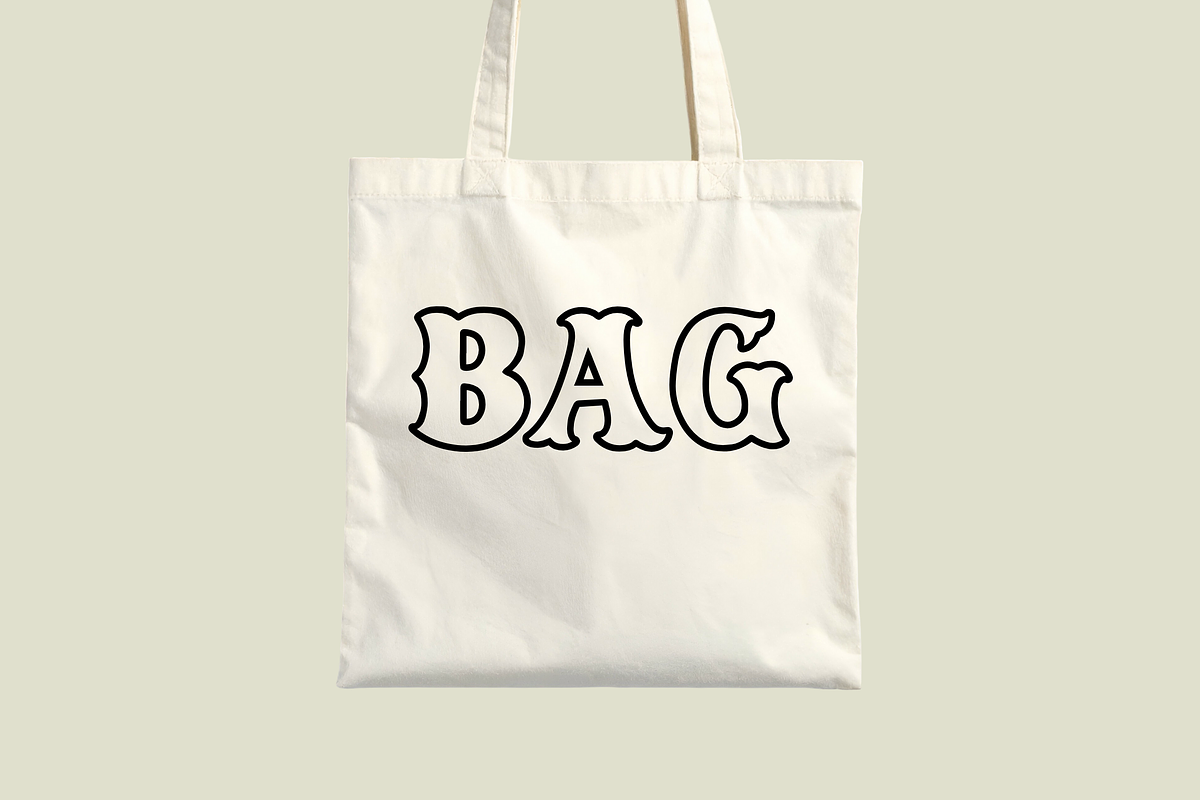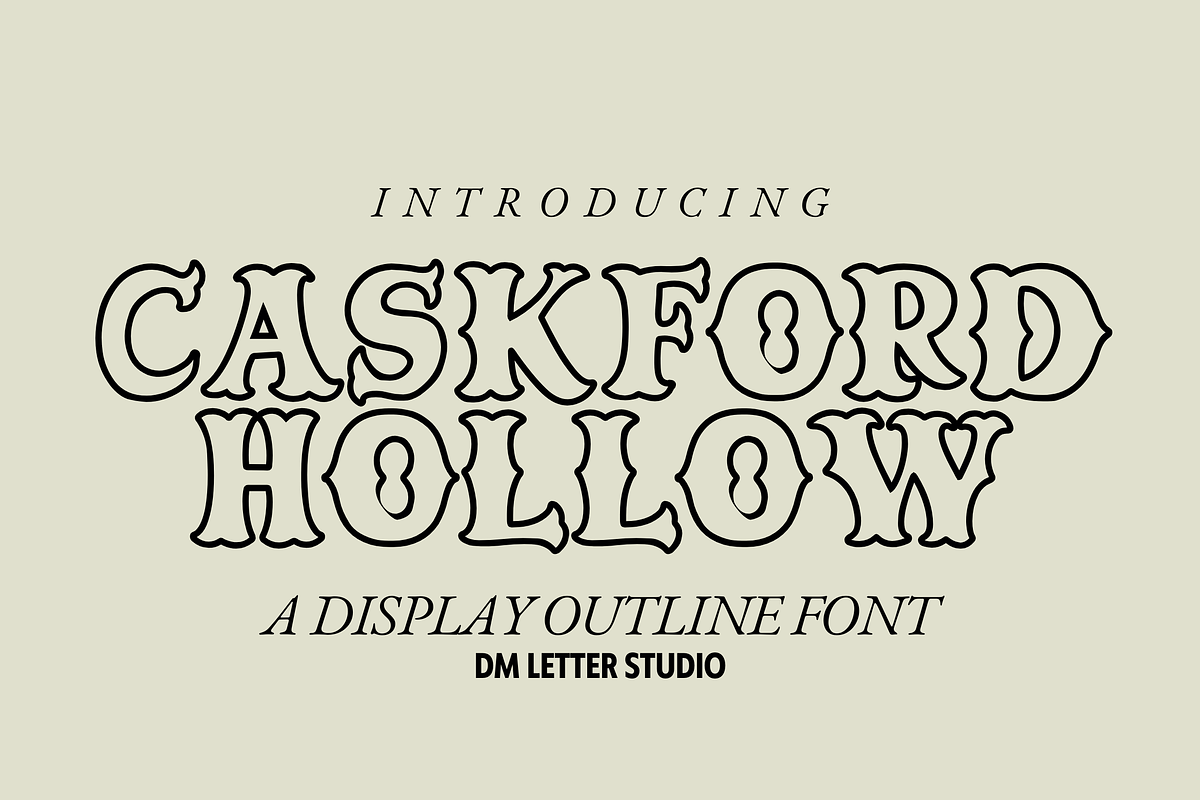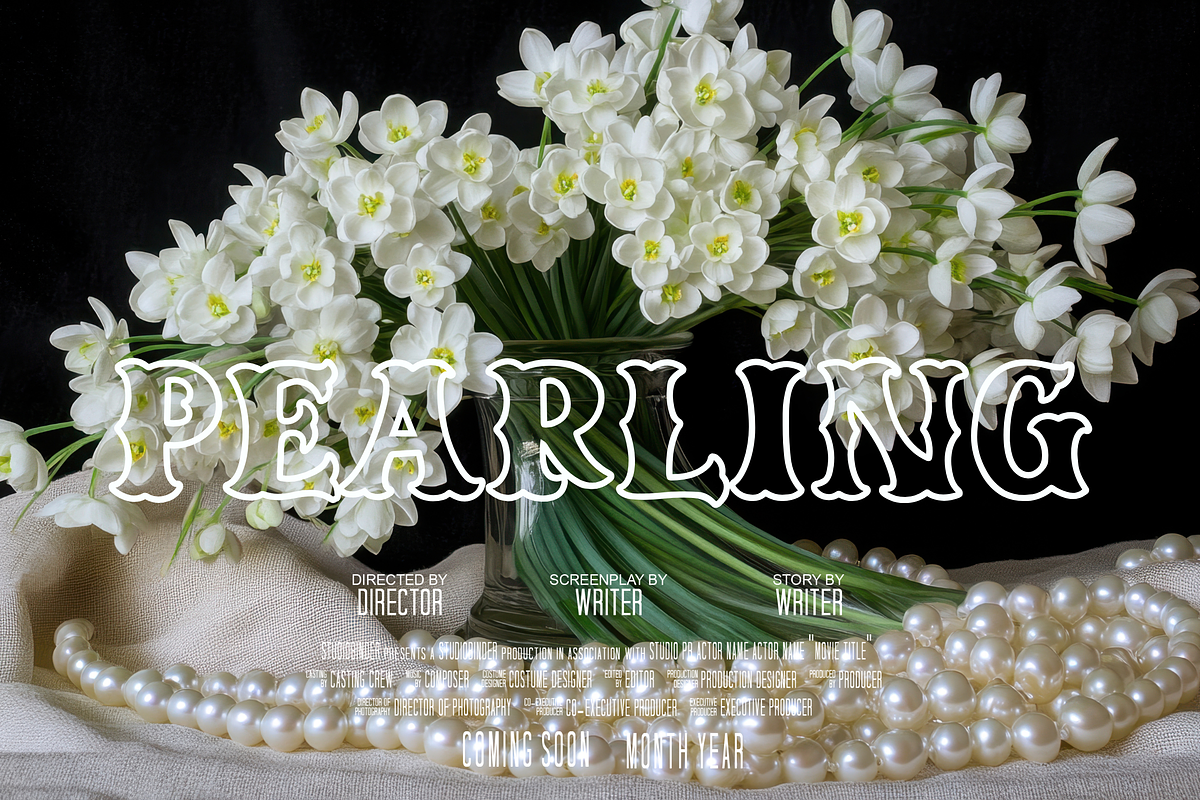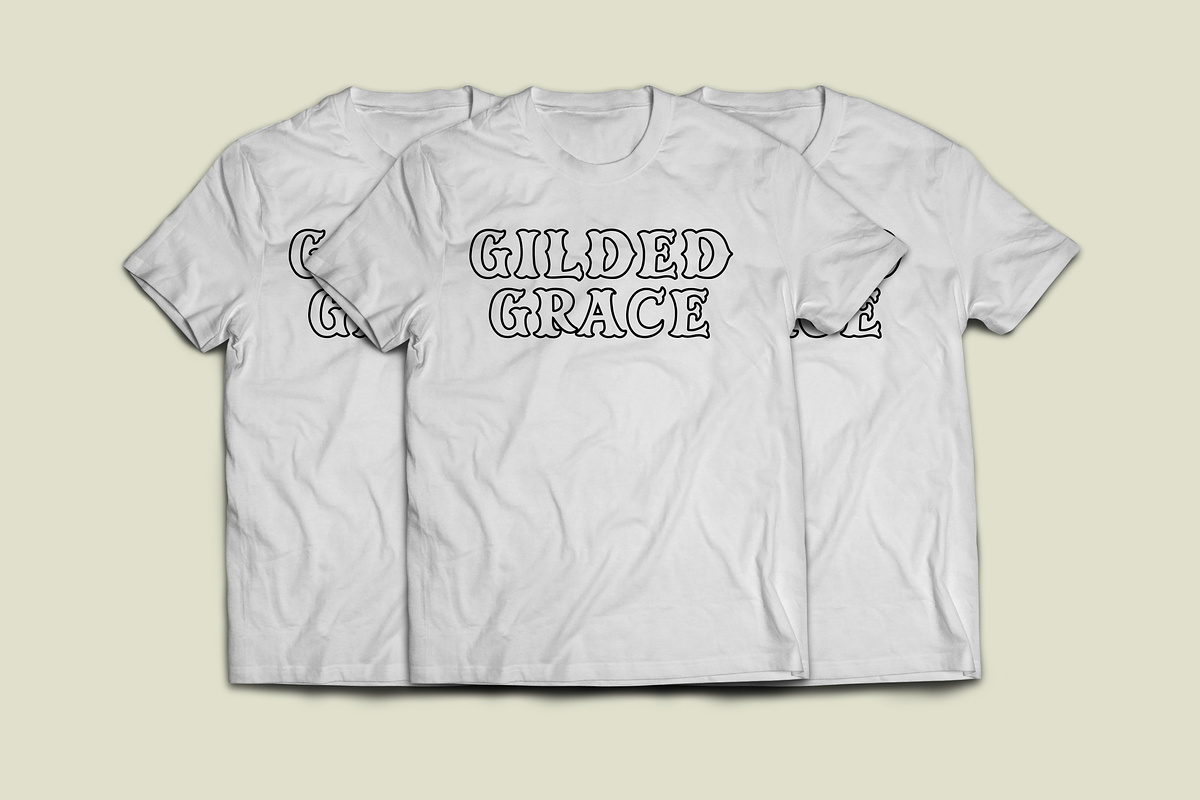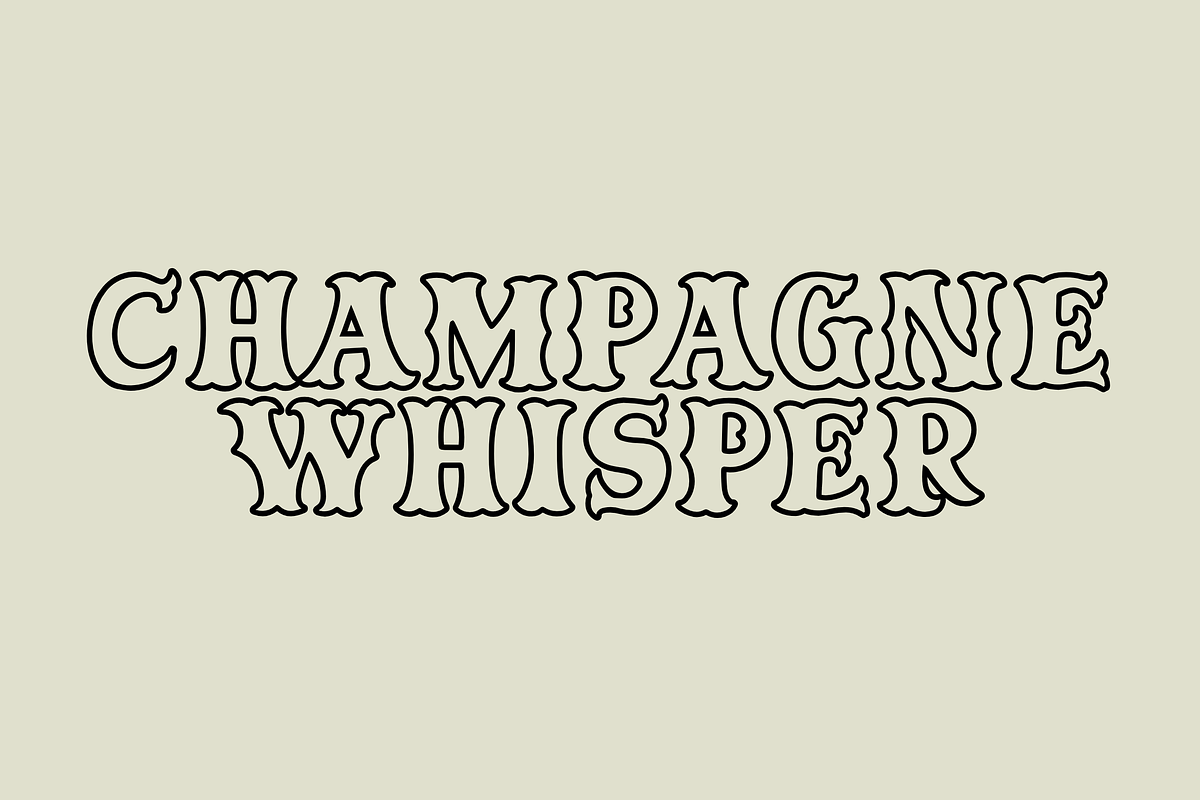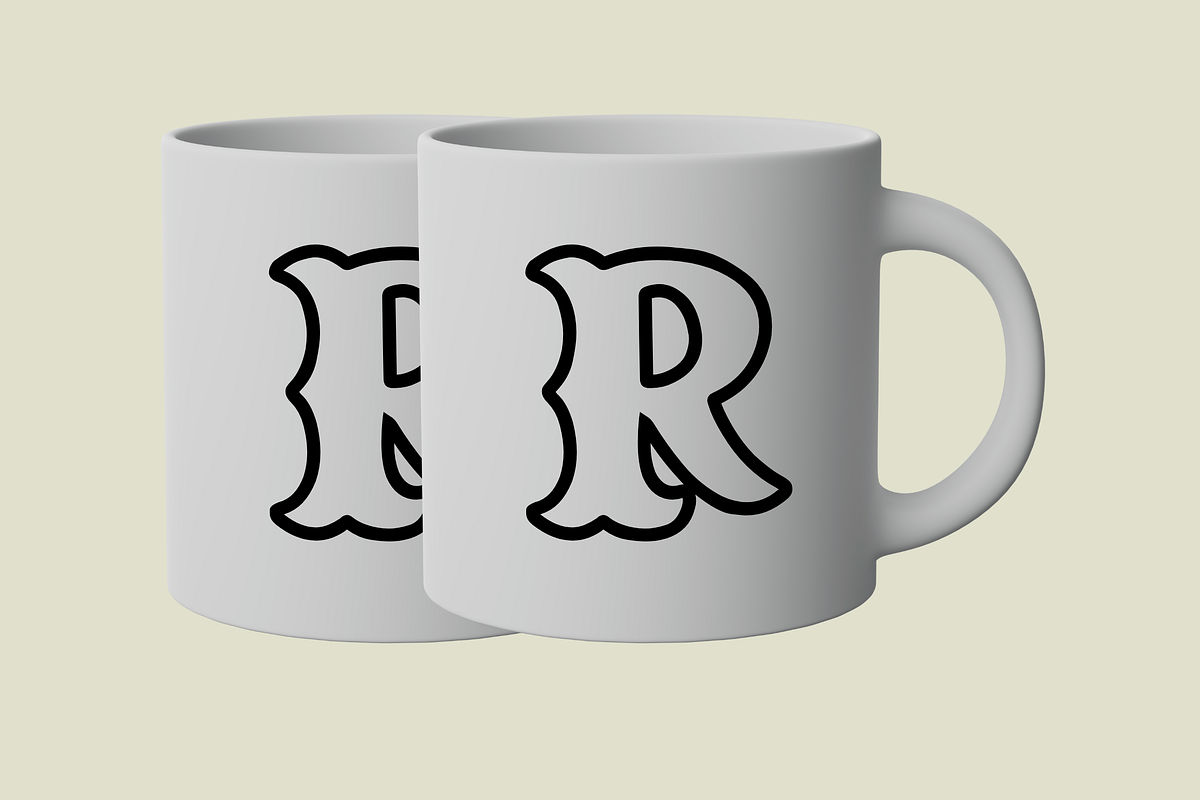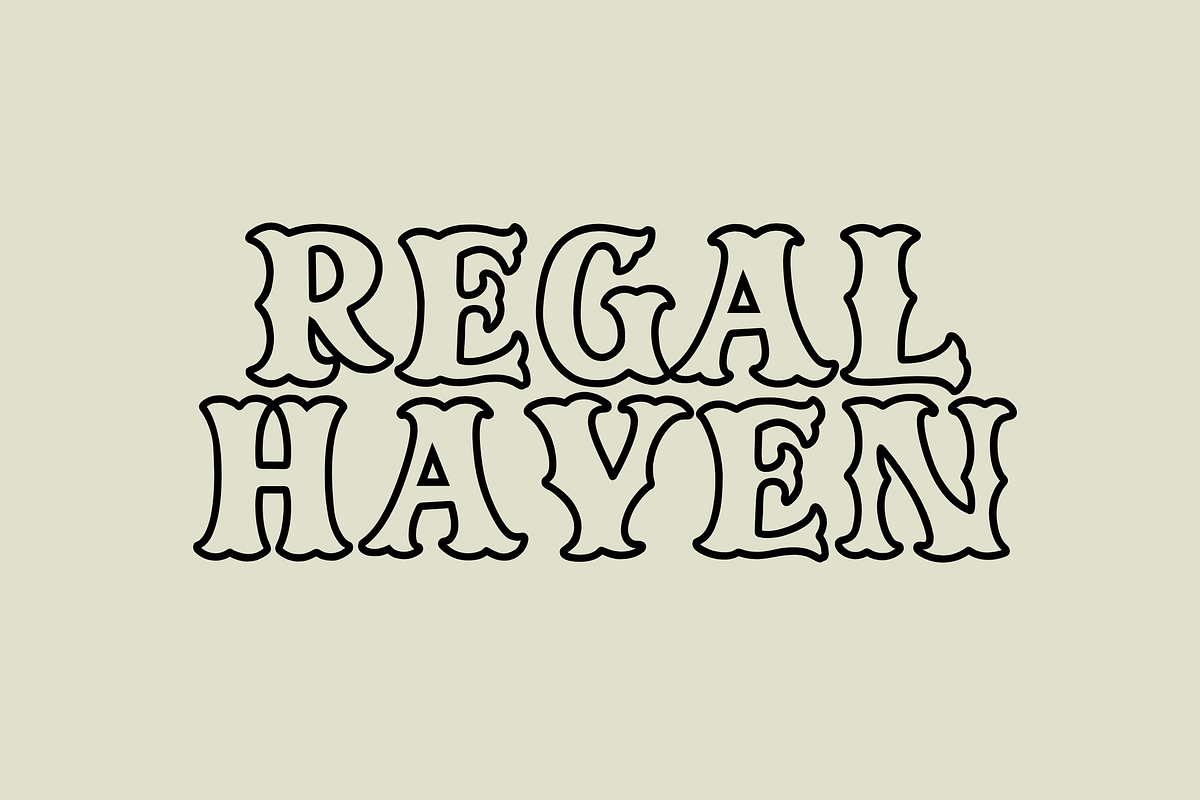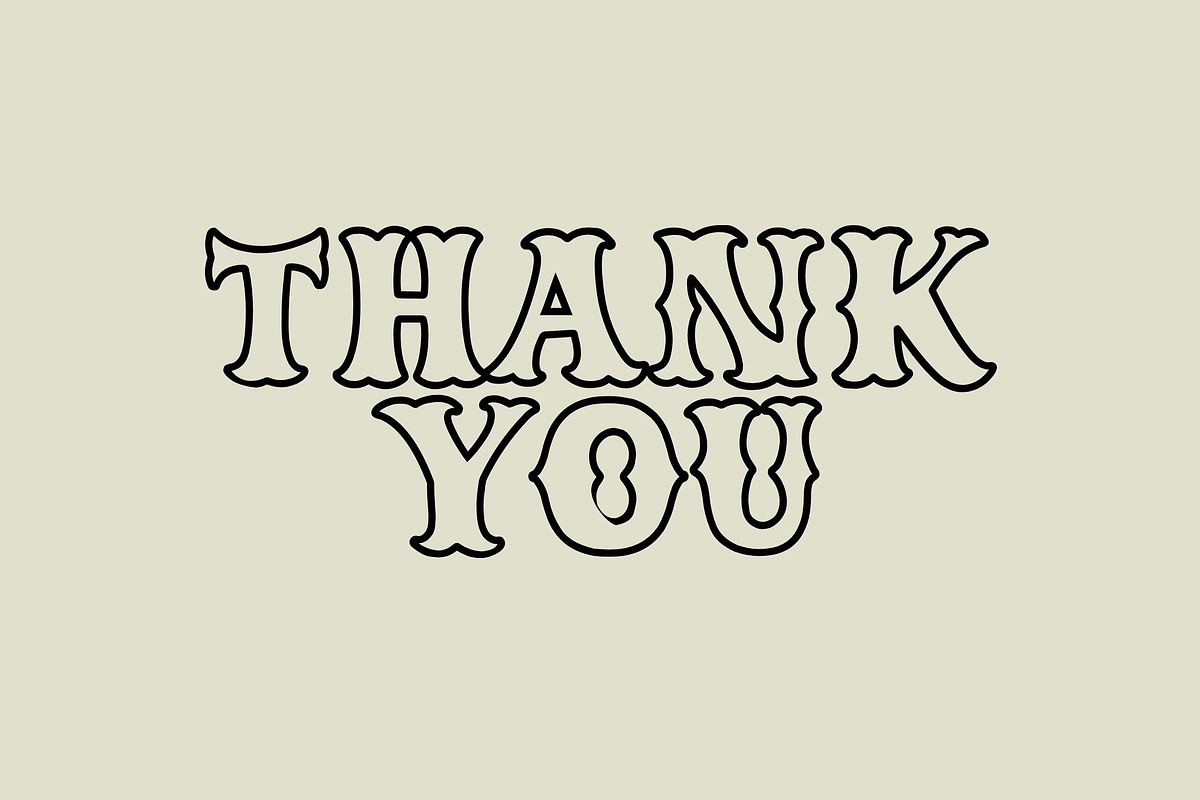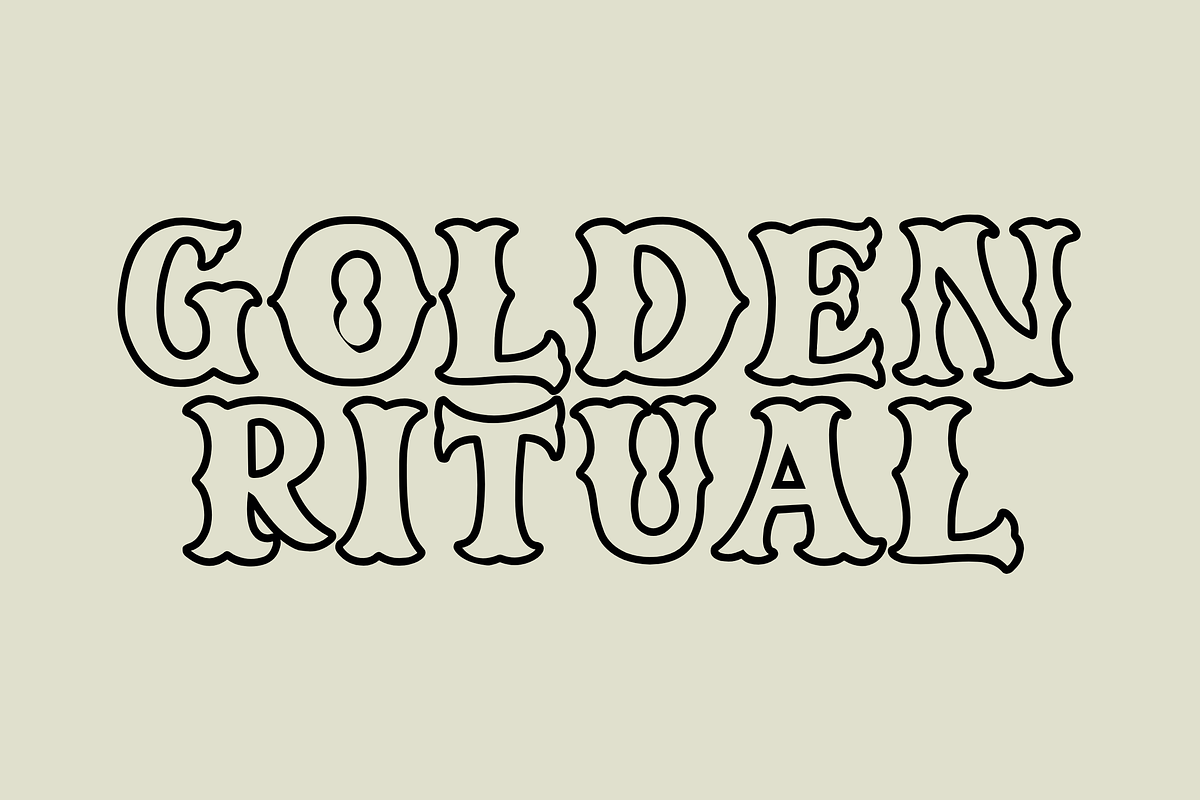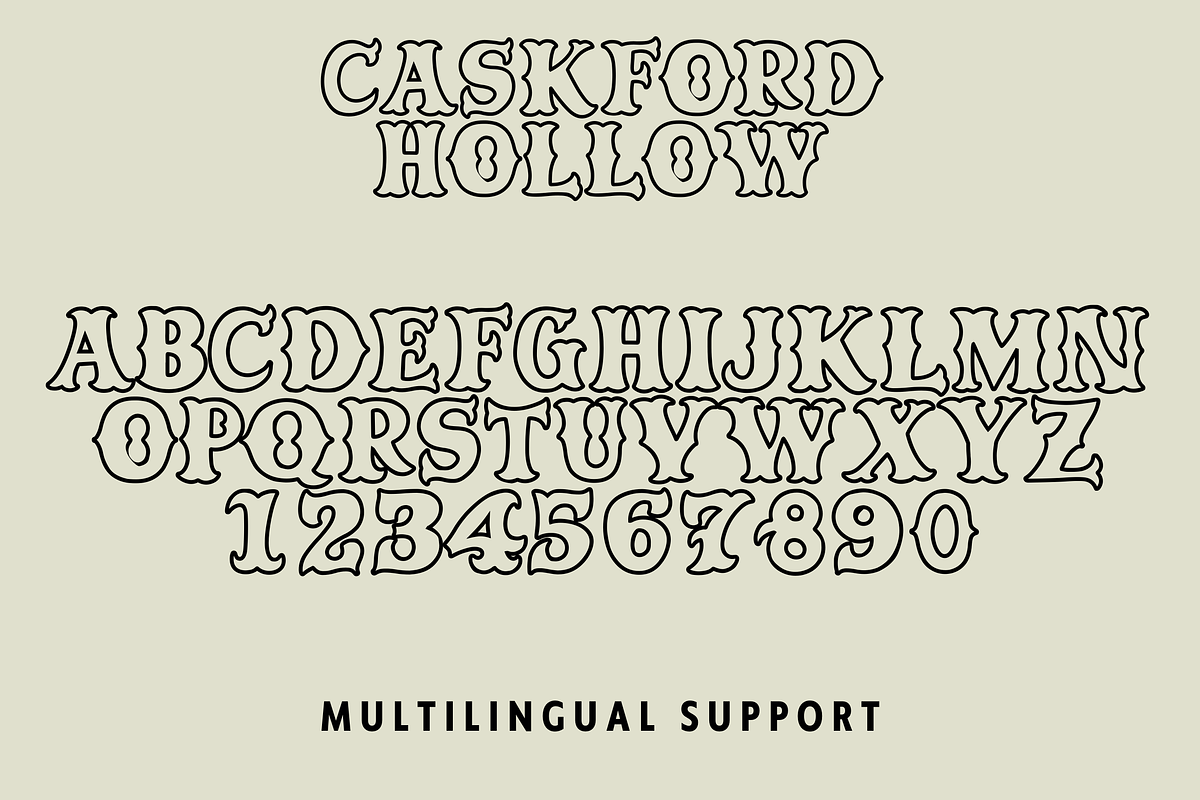
Caskford Hollow
Meet Caskford Hollow, the Hollow Western Font
Caskford Hollow is a vintage old western font with a hollow outline style that gives it a bold, eye-catching look without feeling heavy. Inspired by classic saloon signs and hand-painted frontier lettering, it brings a strong retro character with a lighter visual touch. Because the hollow structure stays clean and balanced, it works beautifully for both large headlines and detailed designs. Use it for logos, posters, packaging, signage, apparel, and rustic branding. As a result, your designs feel classic, bold, and visually striking.
Why Caskford Hollow Font sells
Fast layouts with the Caskford Hollow Font
Start with short, bold words and let the outline style shine. After that, place a solid color or texture behind the letters for contrast. Because Caskford Hollow has strong geometry, it works especially well in badges, arches, and stacked layouts. In addition, it looks great on sign-style frames, western labels, and retro stamp designs. Finally, try color pairs like black & cream, rust & sand, navy & ivory, or forest & tan to lock in the western mood.
Creative uses and quick wins
Western logos, saloon signs, and brand badges
Posters, flyers, and event headlines
Packaging, labels, and vintage-style stamps
T-shirts, stickers, hats, and merchandise
Design tips for Caskford Hollow Font
Use bold background colors or textures to highlight the hollow outlines. Also, increase letter spacing slightly for large headlines to enhance readability. For a classic finish, try grain, wood, or paper textures behind the text. Finally, export at 300 DPI for print and at 2× size for web so outlines stay crisp.